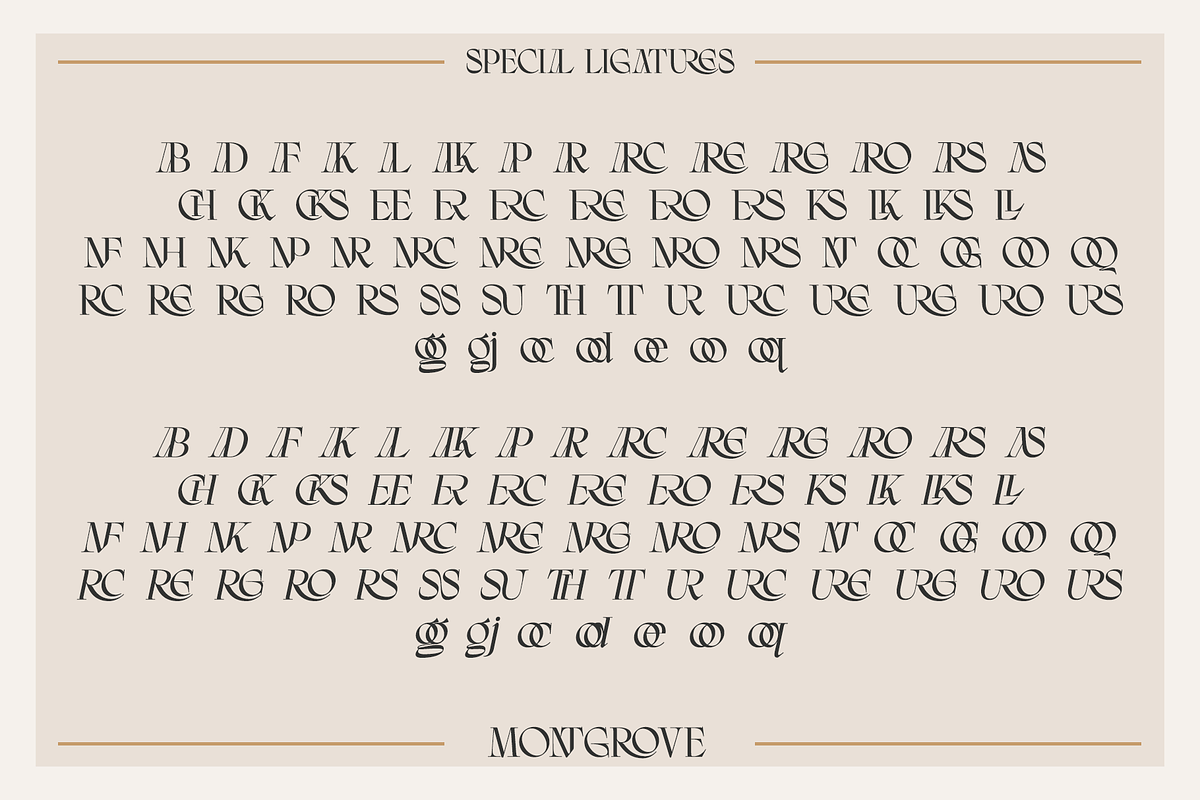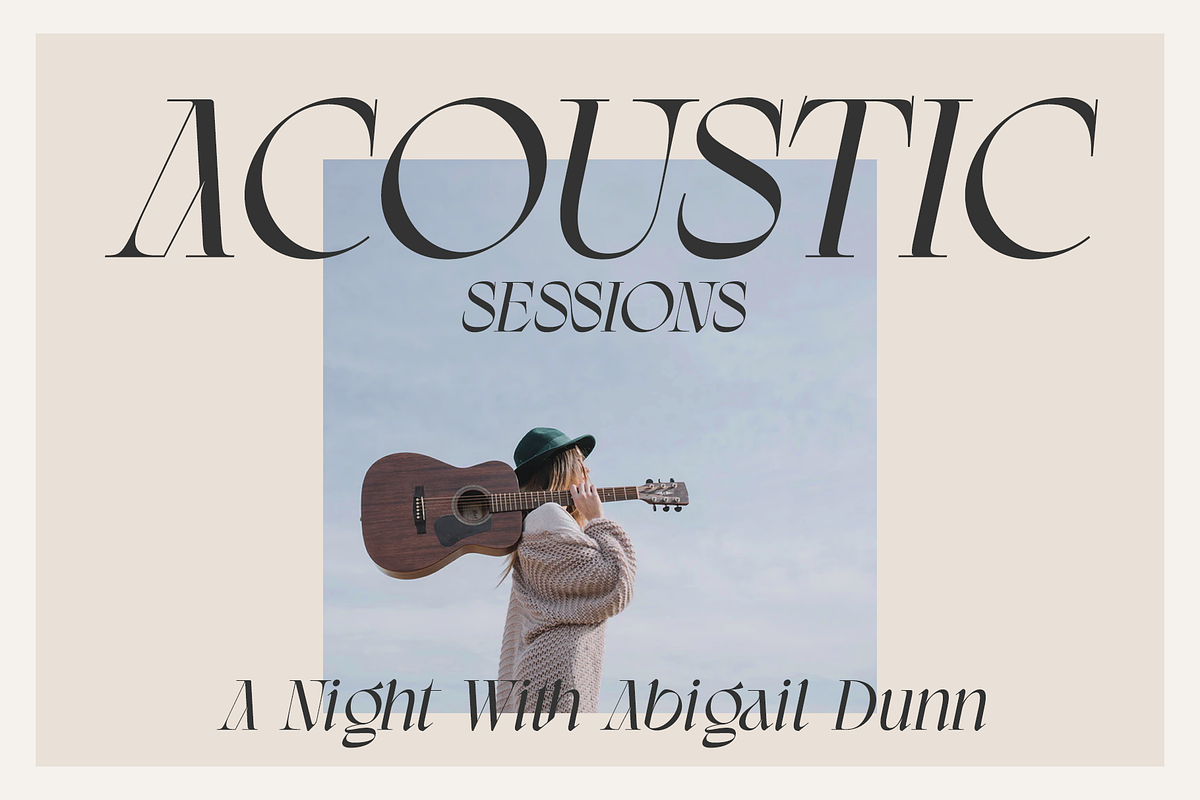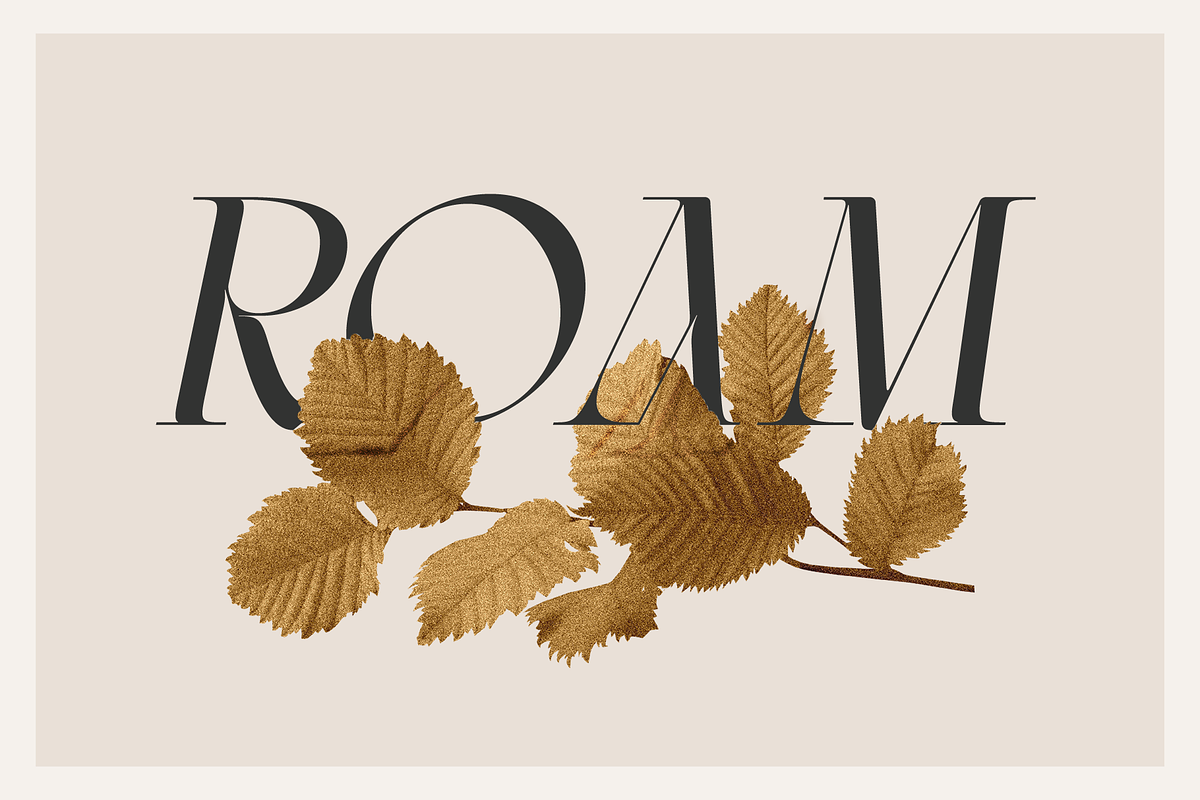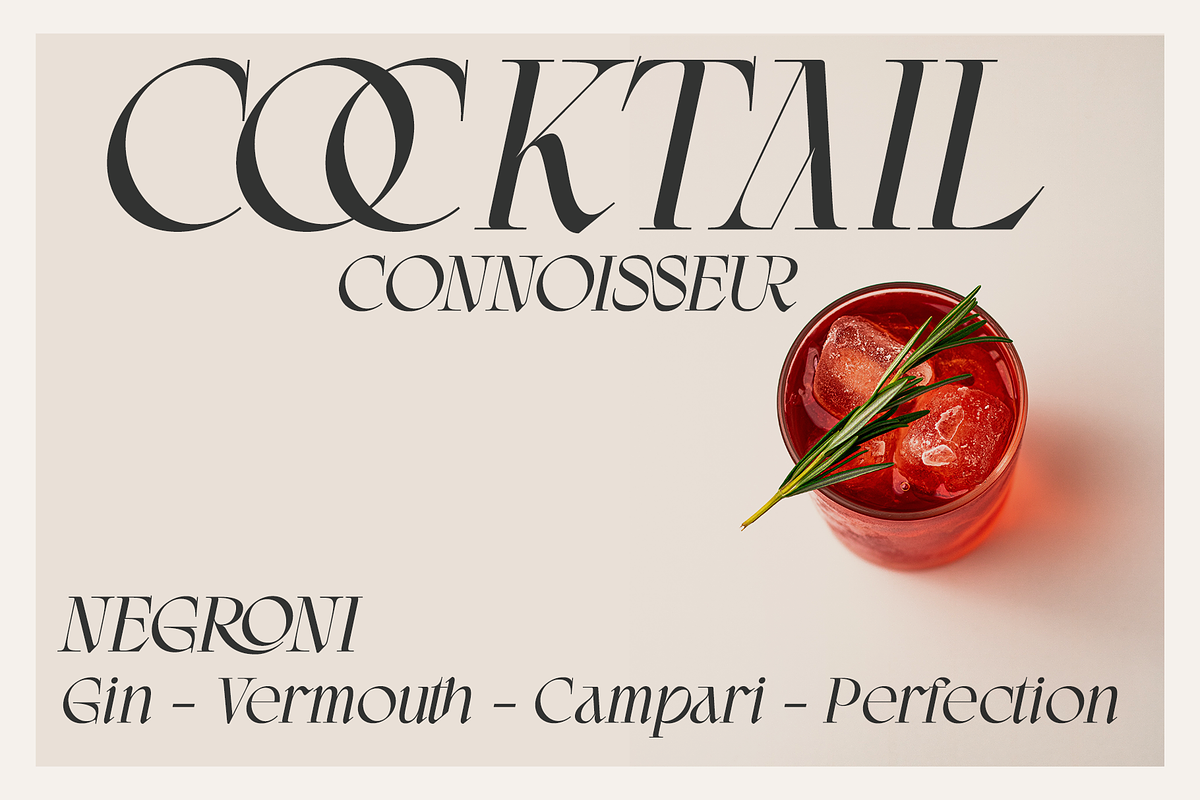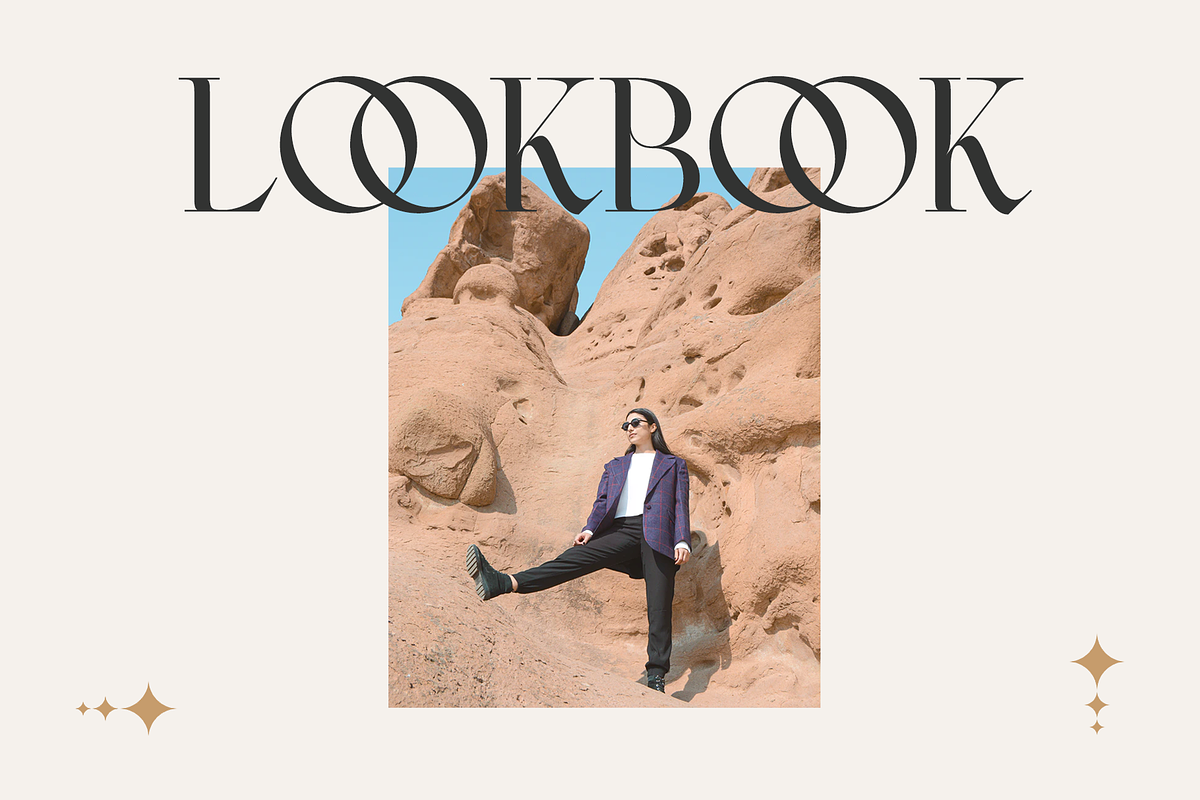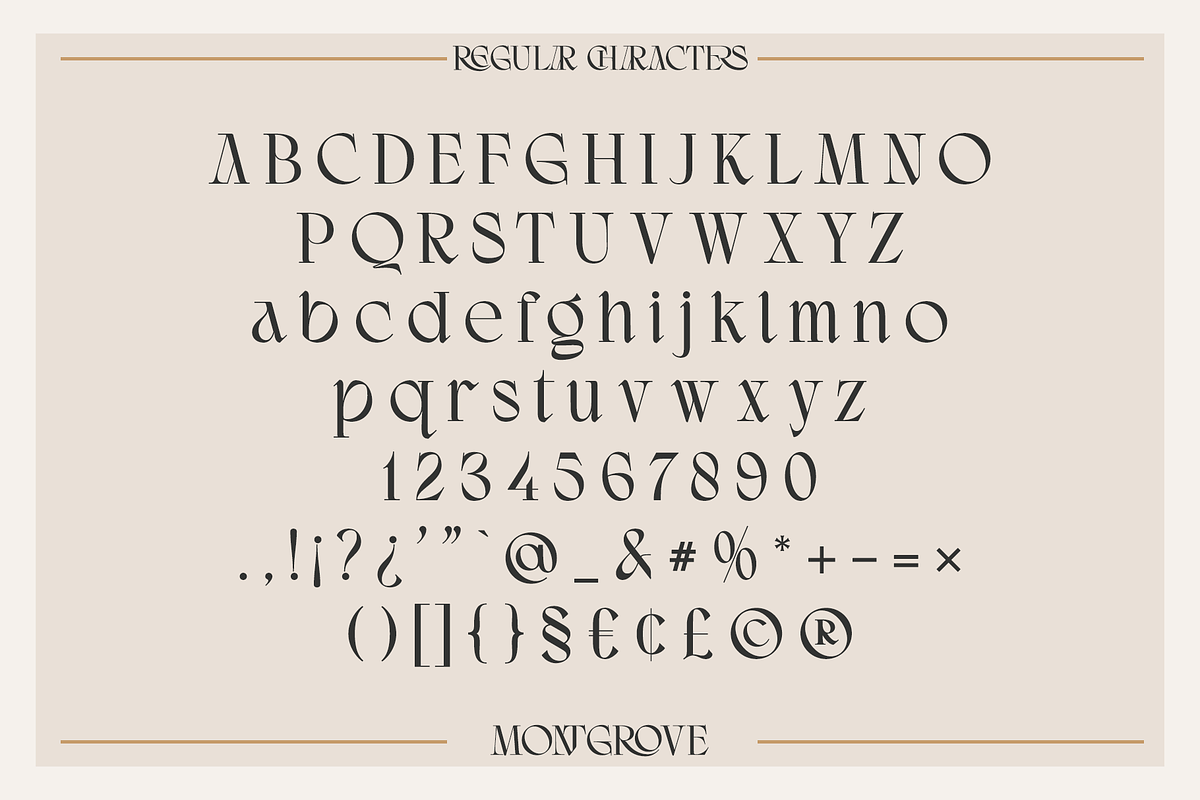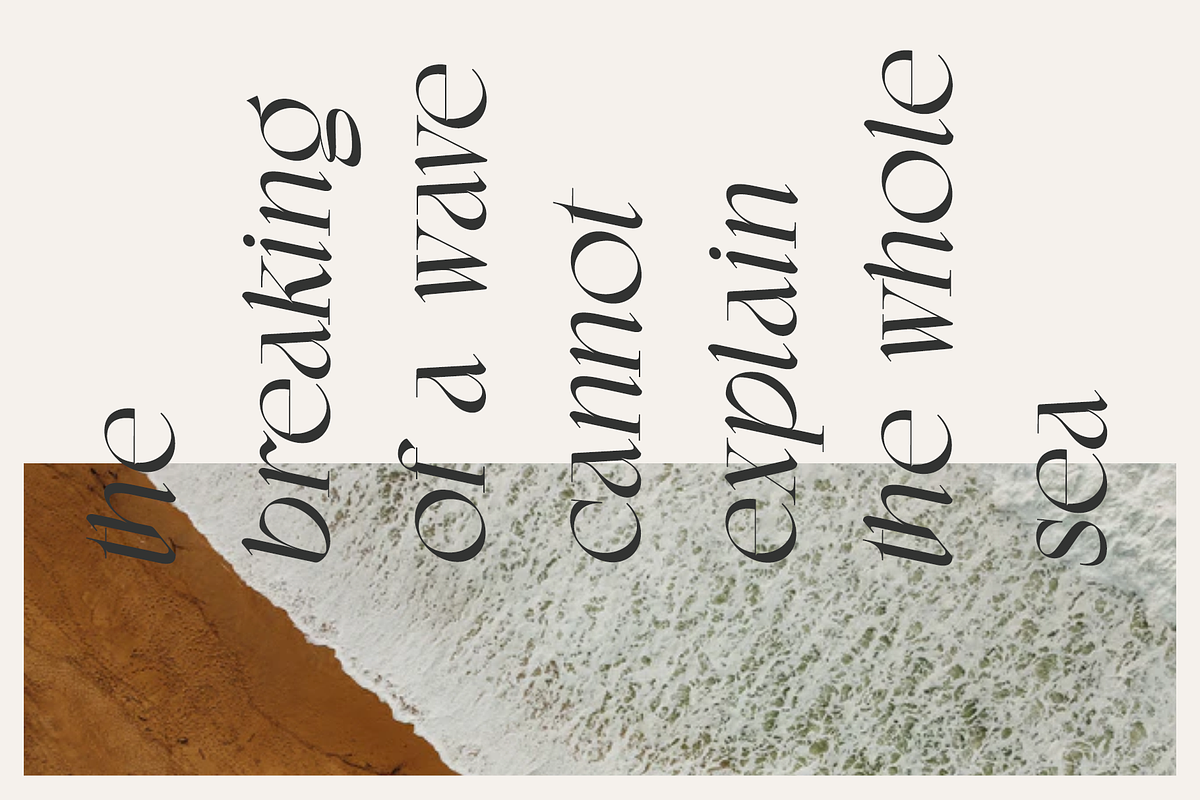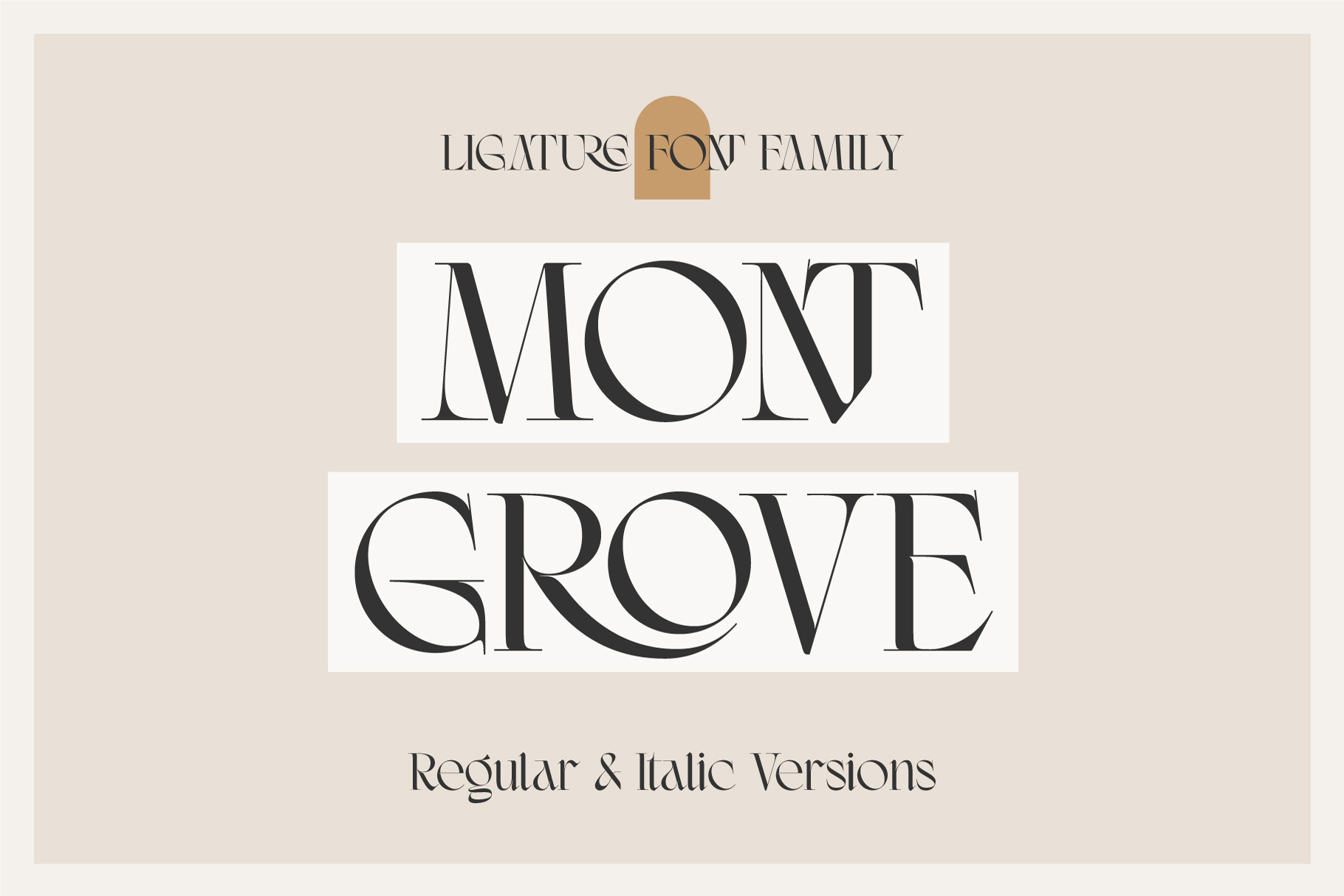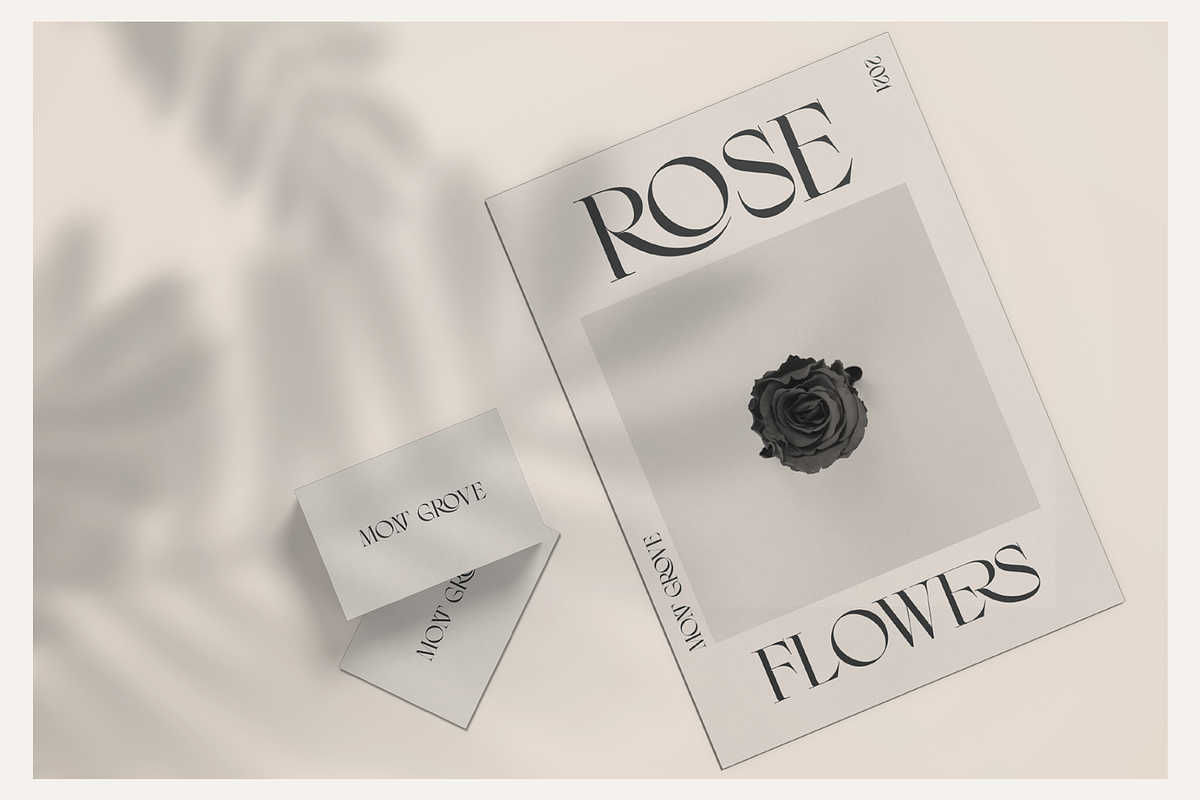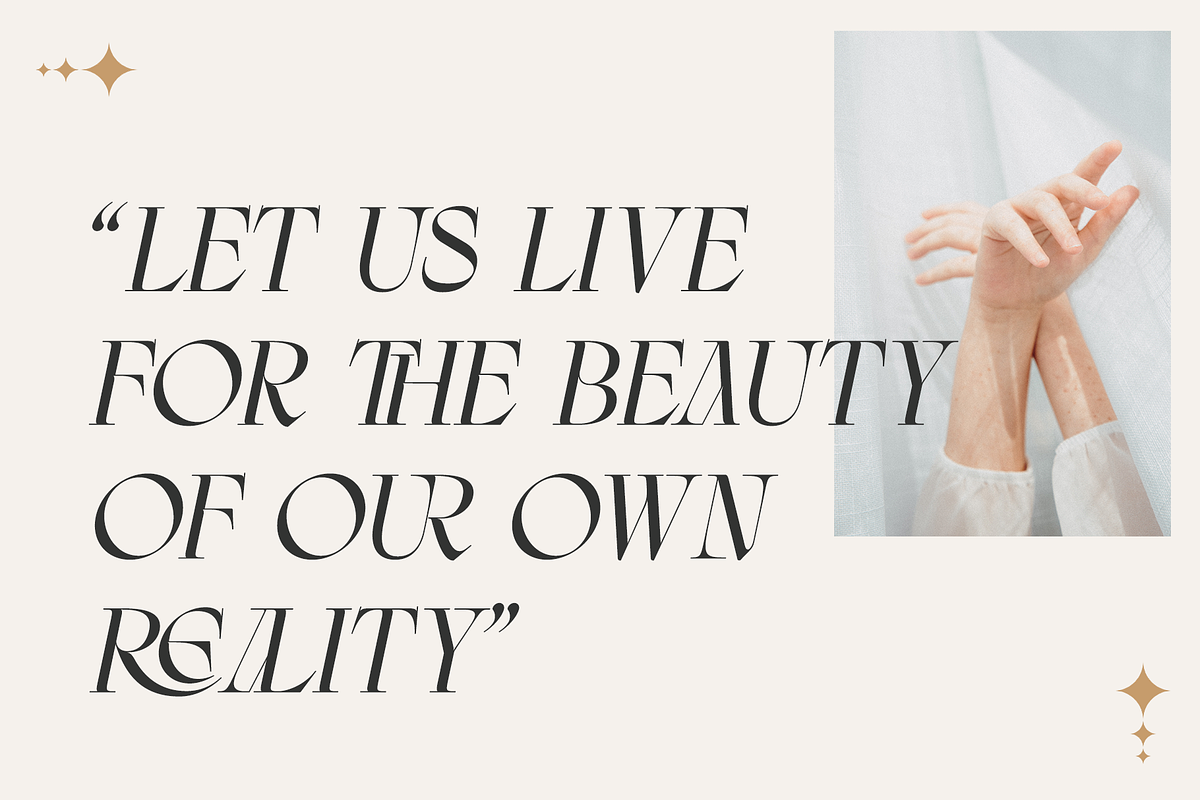
Montgrove - Ligature Serif Font
Montgrove is a beautiful serif font that includes an extensive set of ligatures that's too long to list! Montgrove features large extended serifs that help make it a memorable display font. This font works really well for branding projects, editorial layouts, stationery & so many other projects.